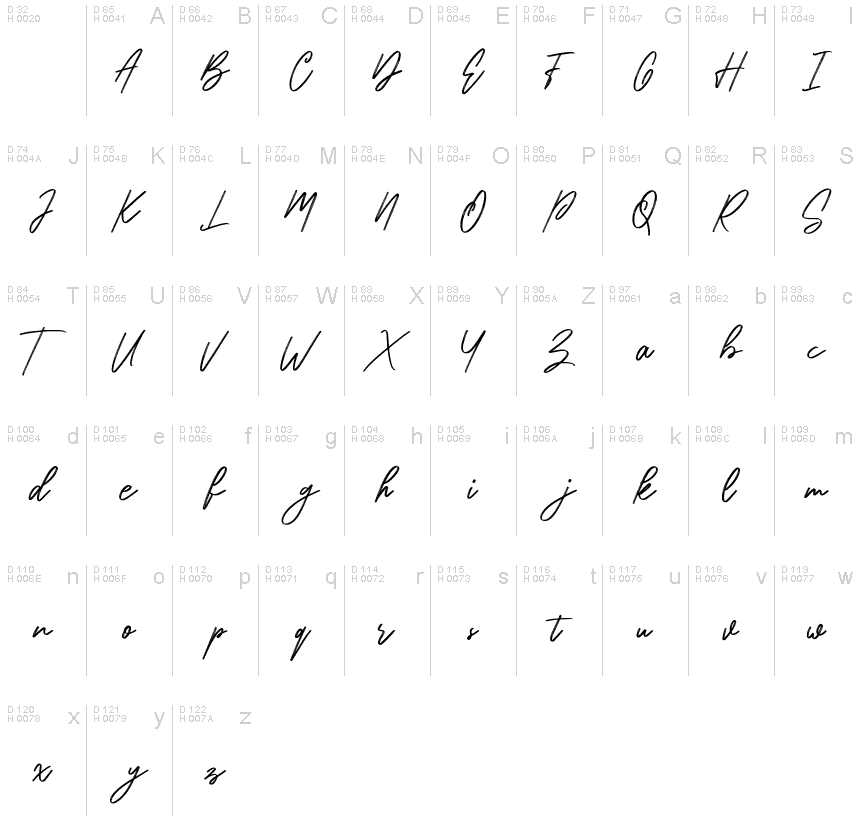
Antigor Free Regular
Antigor is a stunning semi-light handwritten signature font designed by Maulana Creative. This elegant font features a unique style that is perfect for adding a personal touch to various projects. Whether you're working on wedding invitations, greeting cards, logos, or branding materials, Antigor's delicate strokes and charming curves make it an ideal choice. Its stylish aesthetic exudes sophistication and professionalism while maintaining a playful element that adds character to any design. With its versatile appeal and easy readability, Antigor is sure to elevate your creative work with its exquisite charm.